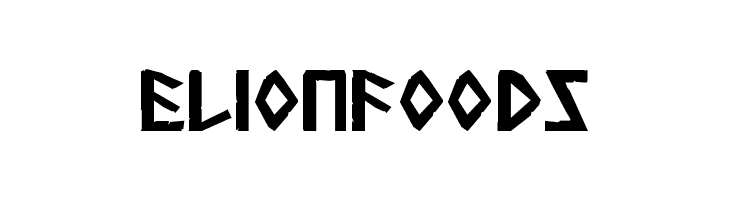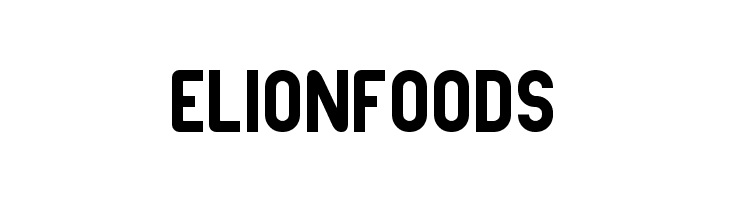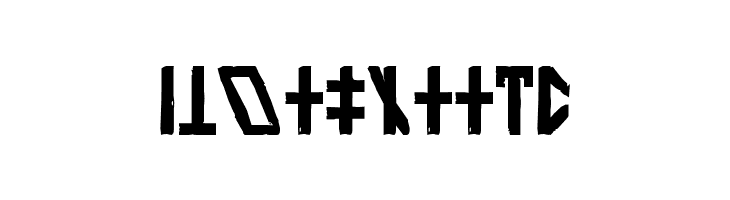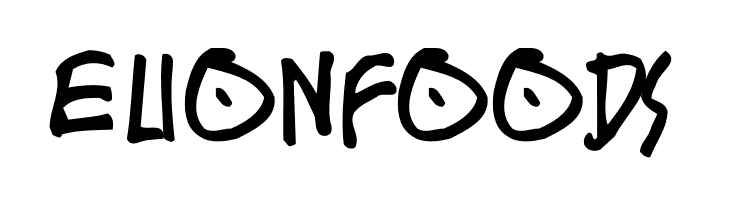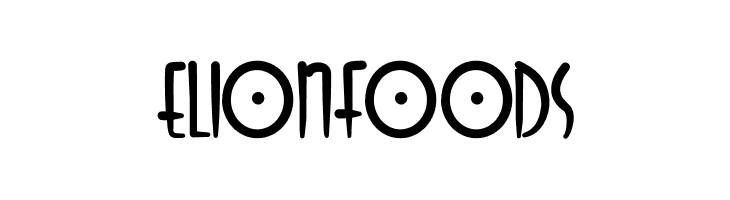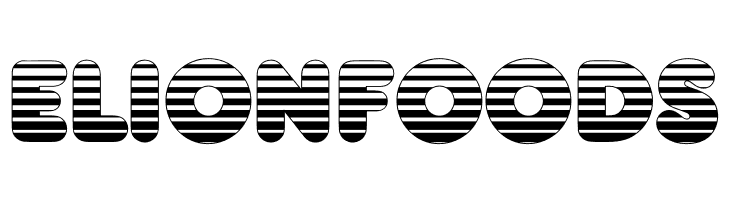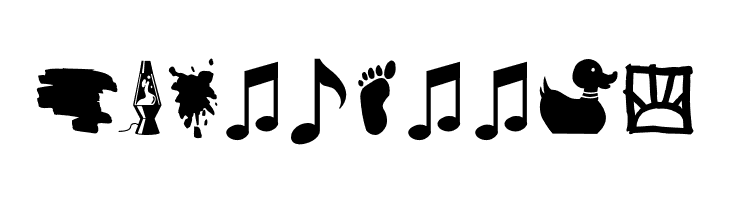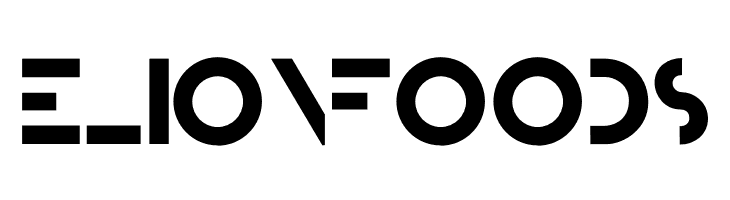
A modern, geometric sans-serif font with clean lines and uniform stroke width.
A bold, angular font inspired by ancient runic alphabets with a modern twist.
A bold, geometric font with a modern and consistent style.
A bold, futuristic font with geometric shapes and a tech-inspired design.
A bold, angular font with a runic, stone-carved aesthetic.
A bold, handwritten font with a casual and dynamic style.
A playful, retro-inspired font with tall, narrow characters and rounded edges.
A bold, playful font with a unique horizontal stripe pattern and rounded, three-dimensional characters.
A playful decorative font with whimsical symbols and icons.
A bold, geometric font with a modern and abstract design.